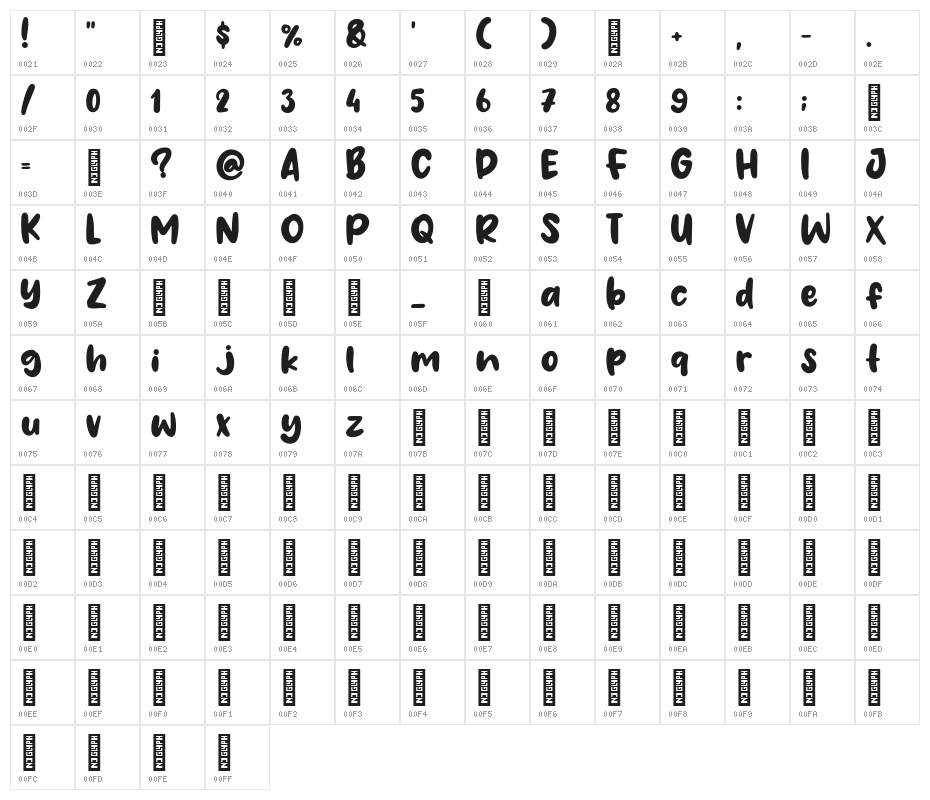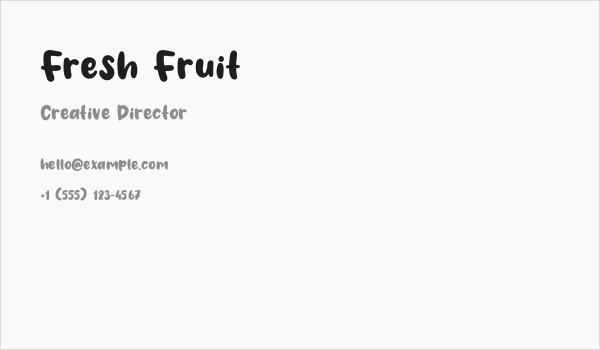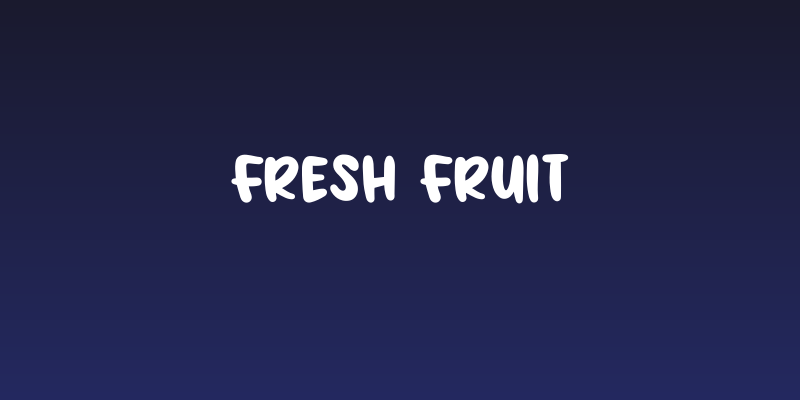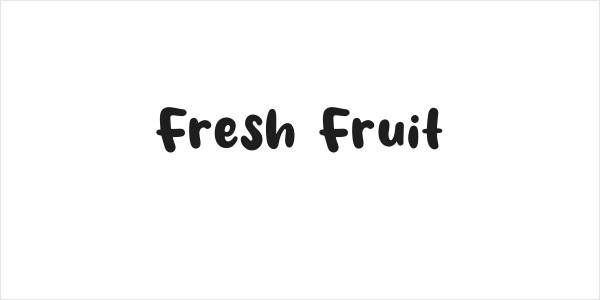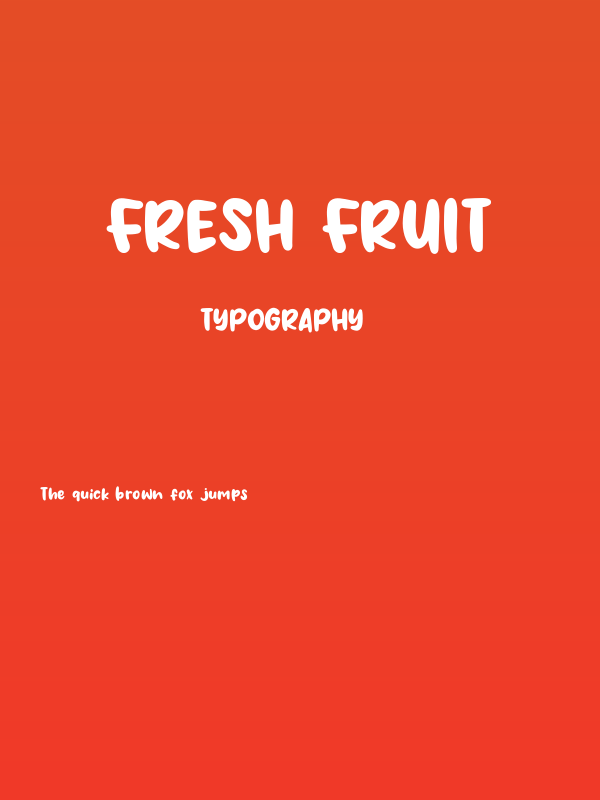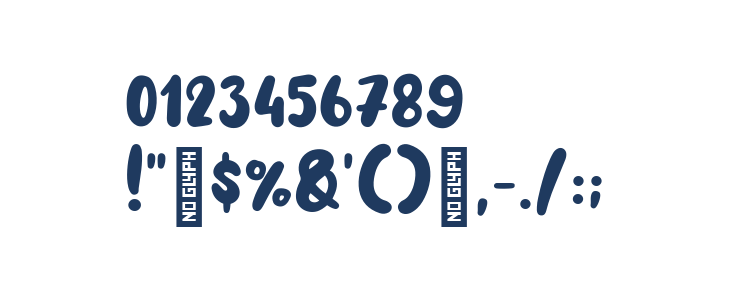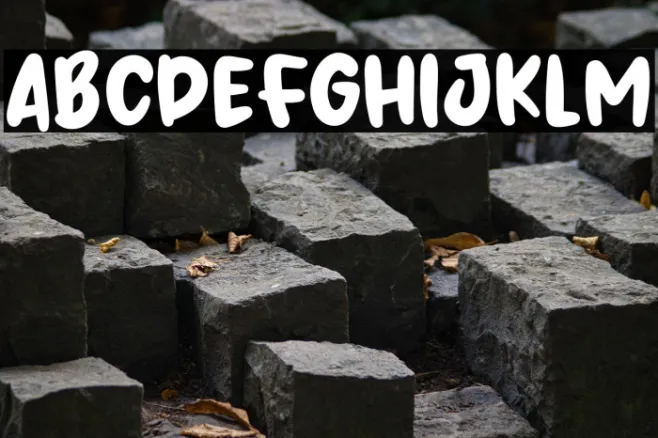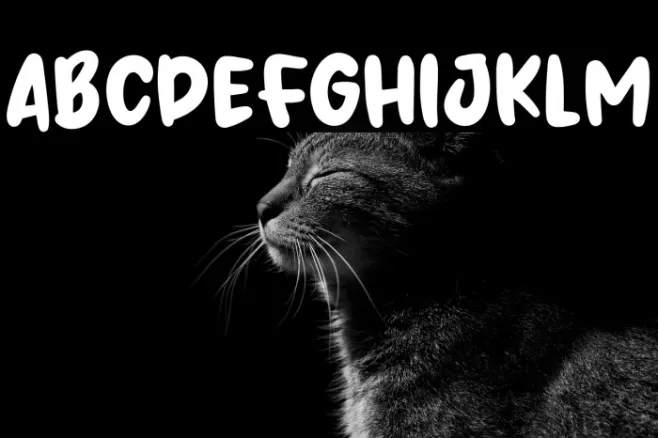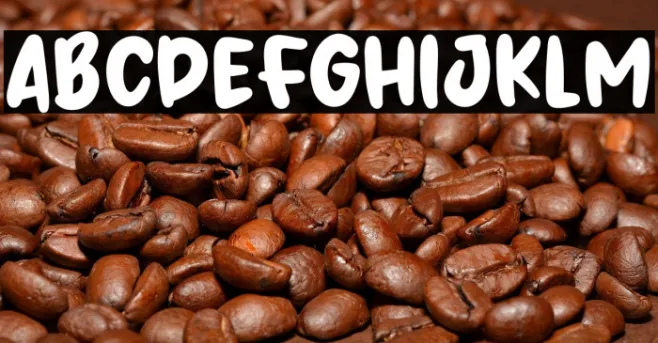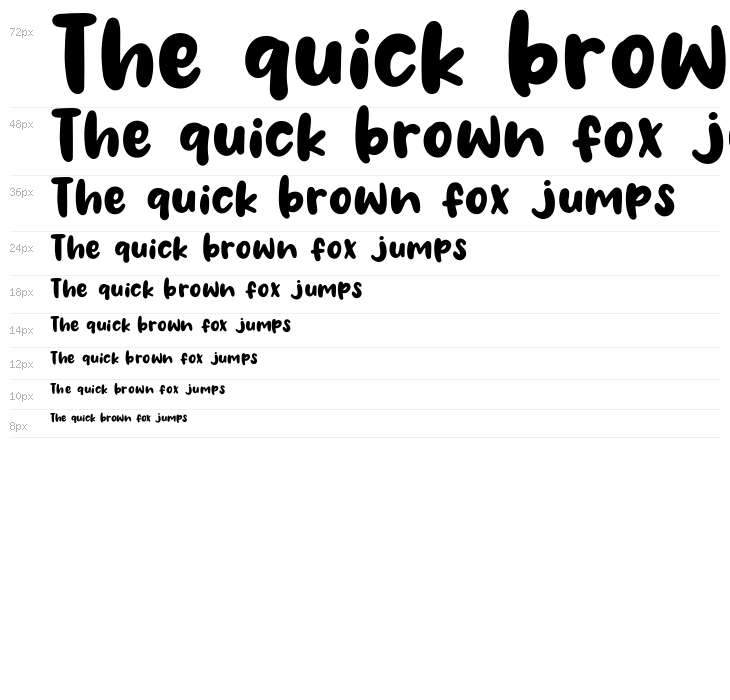
Fresh Fruit Font
Fresh Fruit Description
This playful and bold font features rounded, thick strokes that give it a friendly and approachable appearance. The letters are slightly irregular, adding a hand-drawn, casual feel. The uppercase and lowercase characters maintain a consistent style, with a smooth flow that enhances readability. Numbers and special characters are designed with the same playful aesthetic, making them suitable for a variety of creative applications. The overall design is energetic and lively, perfect for projects that require a touch of fun and personality.
| Proposed Projects | Ideal for children's books, playful branding, event posters, and social media graphics. |